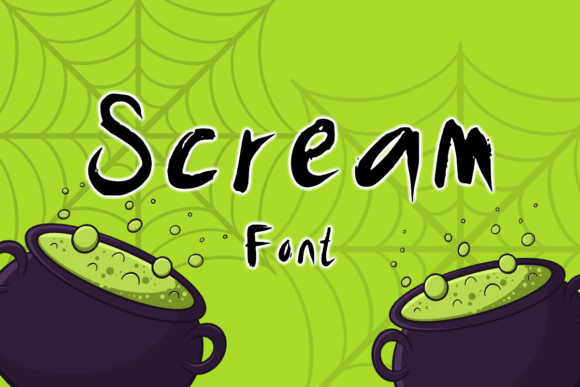
If you're looking for a font that will make your words jump off the page and grab your readers by the eyeballs, then look no further than Scream Font! This spooky and scary Halloween-themed font is perfect for adding a touch of fright to any project.
Scream Font is a handwritten scratchy font that is perfect for creating eye-catching headlines, posters, T-shirt designs, mugs, cards, invitations, gift bags, and so much more. It's also great for adding a touch of personality to your social media posts, website, or blog.
With its unique and stylish design, Scream Font is sure to make your projects stand out from the crowd. So if you're looking for a font that will add a touch of fright to your next project, then download Scream Font today!
* It's perfect for creating eye-catching headlines and titles.
* It's great for adding a touch of personality to your social media posts, website, or blog.
* It's perfect for creating Halloween-themed projects.